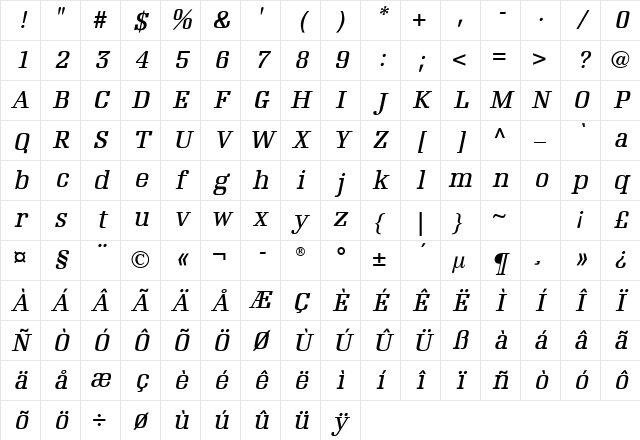
Napoleon is a composed and adaptable typeface that performs quietly and consistently across a wide range of design contexts. The slanted form adds forward momentum and visual energy.
Pro Tip: Use Napoleon for emphasis, pull quotes, and subheadings where its slanted energy can add rhythm to the layout.